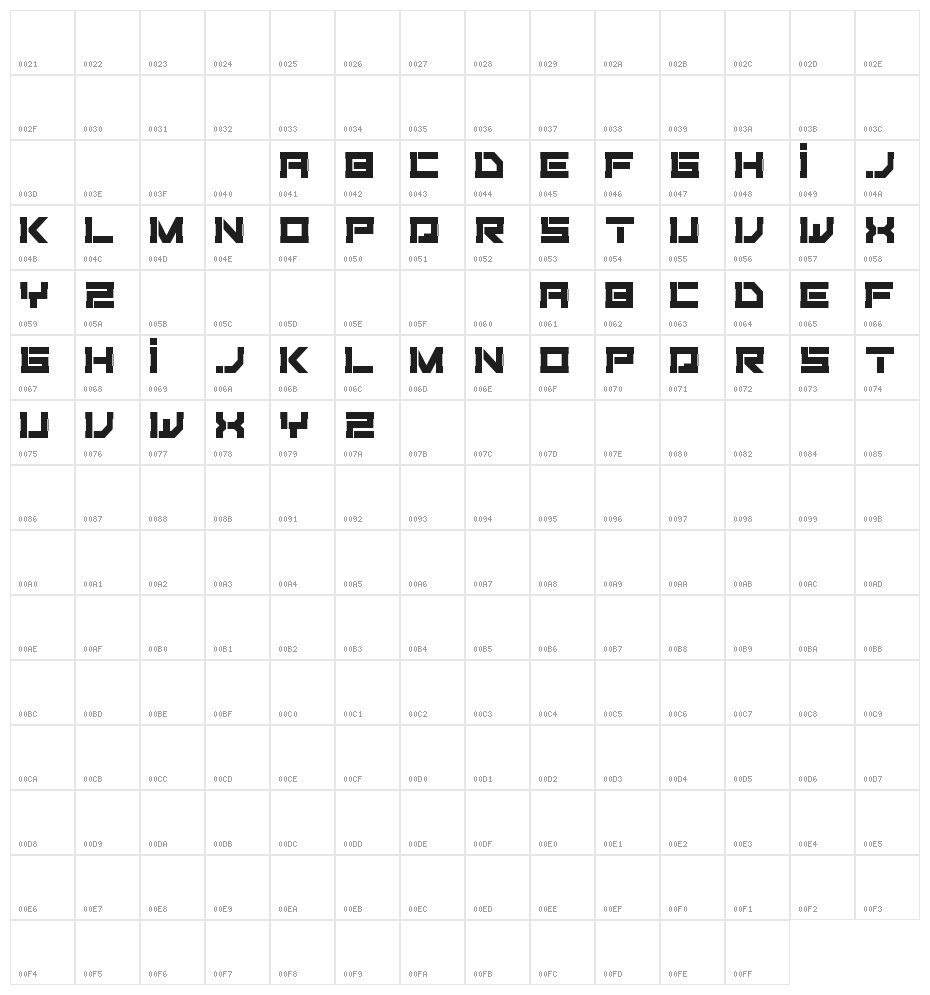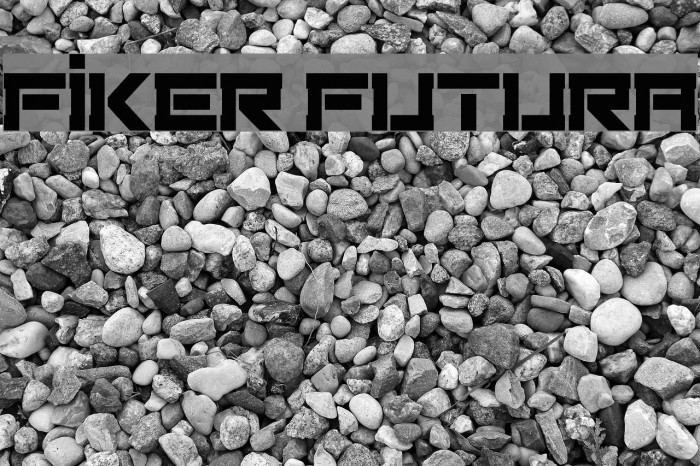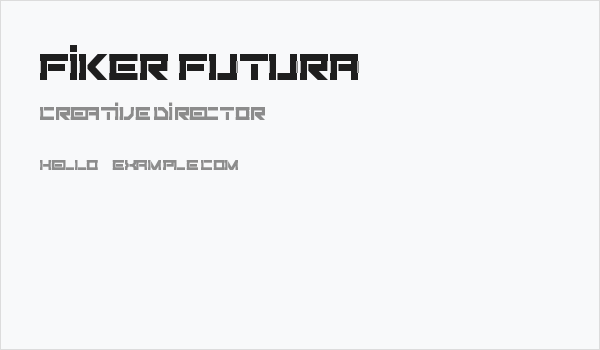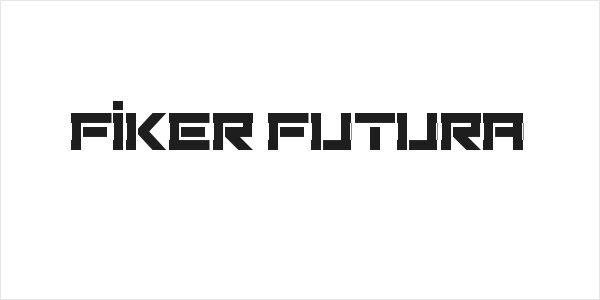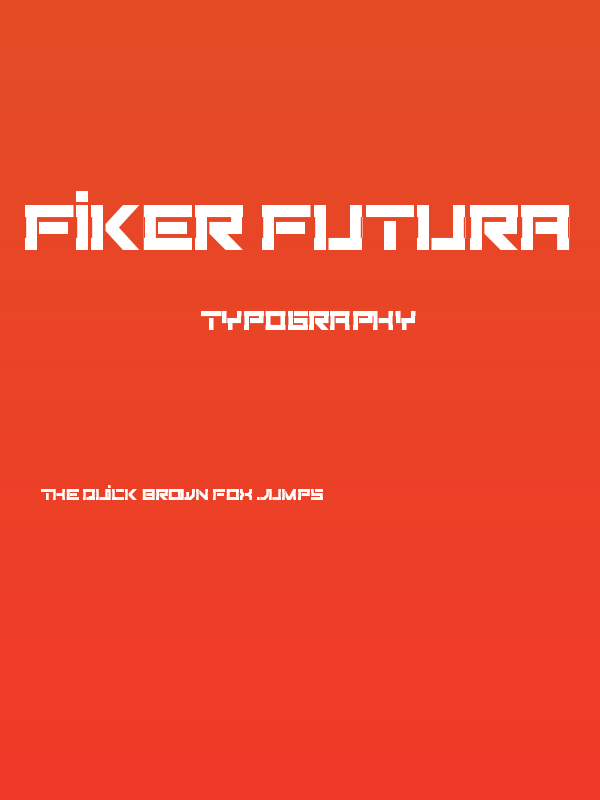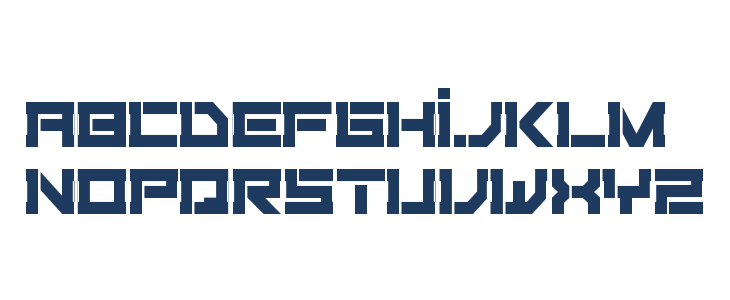
Fiker Futura Font
Fiker Futura Description
This font features a bold, futuristic design with a geometric and angular structure. The characters are constructed with sharp edges and straight lines, giving it a highly modern and digital appearance. The uppercase letters are uniform in height, creating a cohesive and structured look. The font's style is reminiscent of digital displays or sci-fi themes, making it ideal for projects that require a tech-savvy or avant-garde aesthetic. The consistent stroke width across all characters contributes to a clean and uniform presentation.
| Proposed Projects | Ideal for tech branding, sci-fi themed designs, video game graphics, and digital interfaces. |